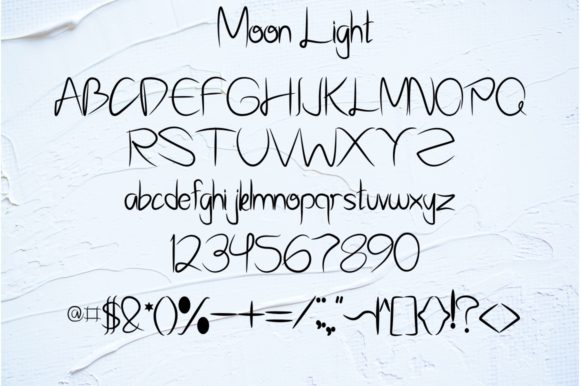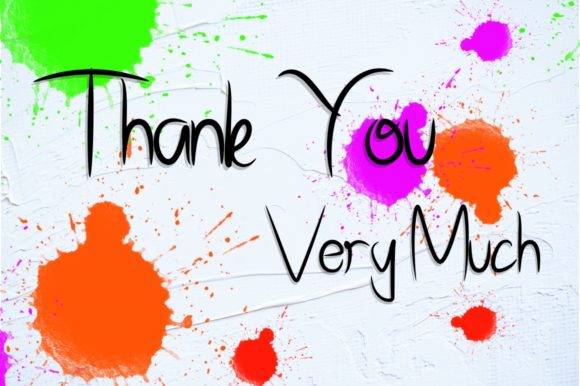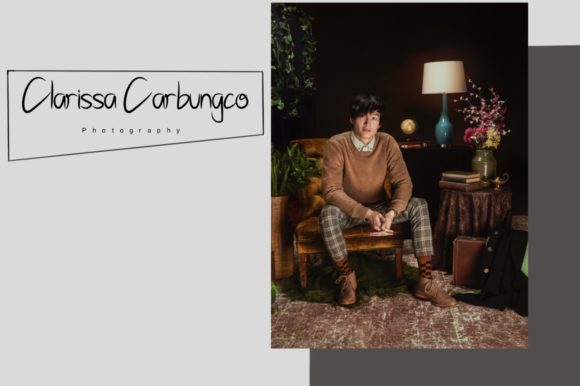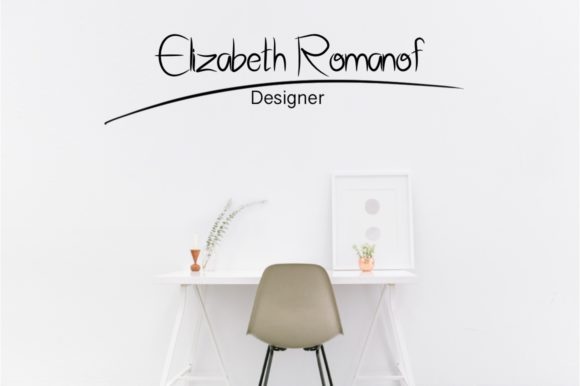
Moon Light Font
About Moon Light Font
Moon Light is a gorgeous handwritten font, with an incredibly distinct style. Its well balanced characters make this font particularly adept to a wide pool of contexts, both formal and non-formal.